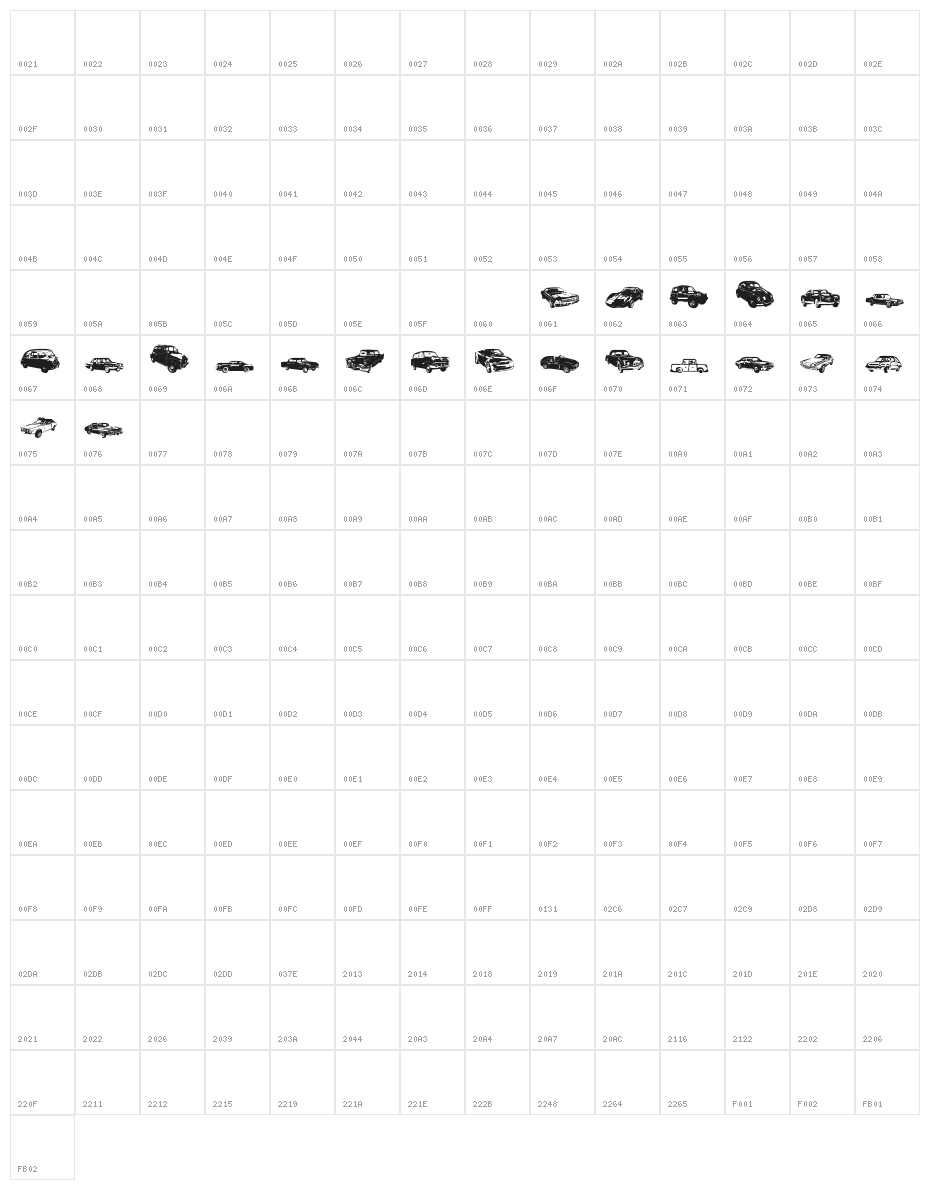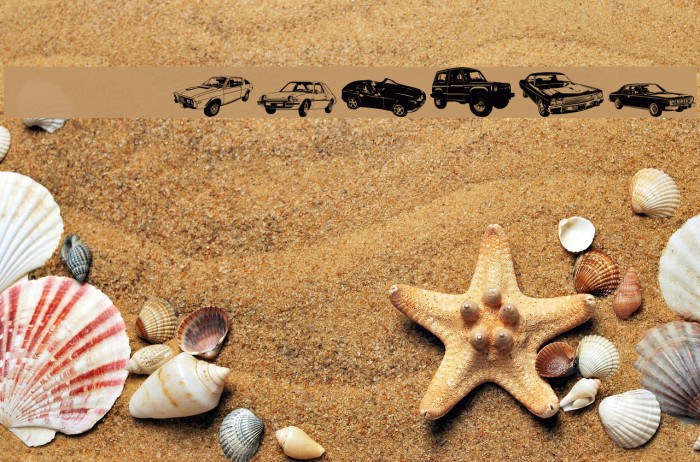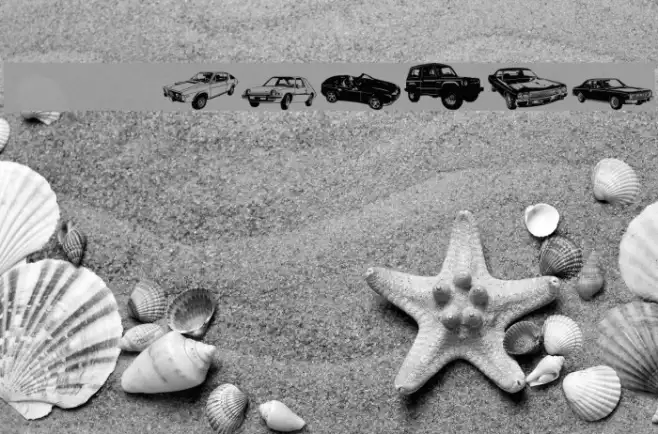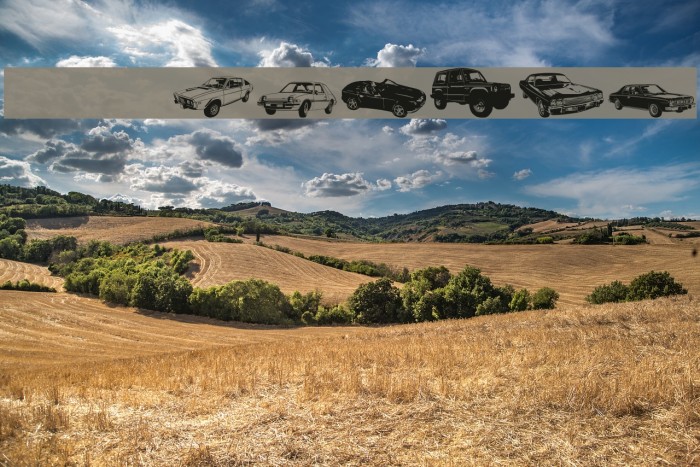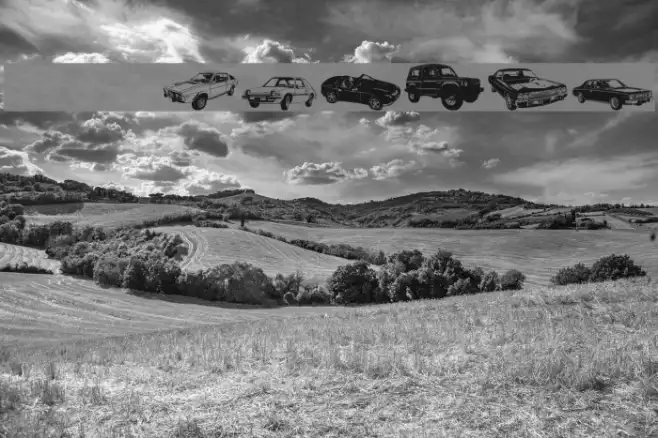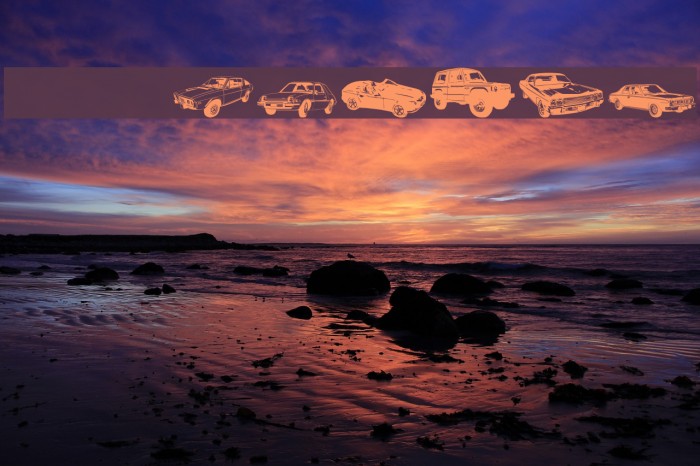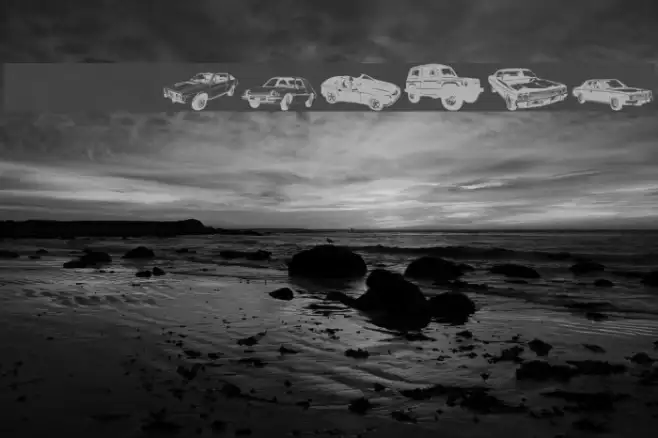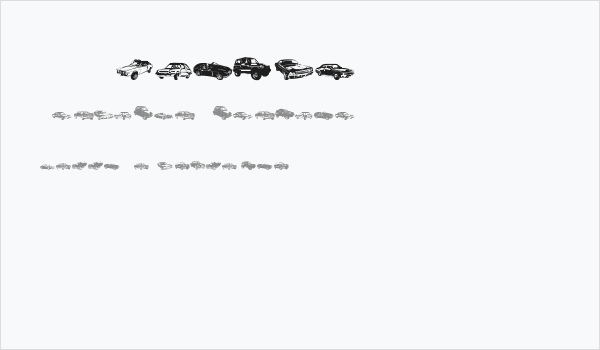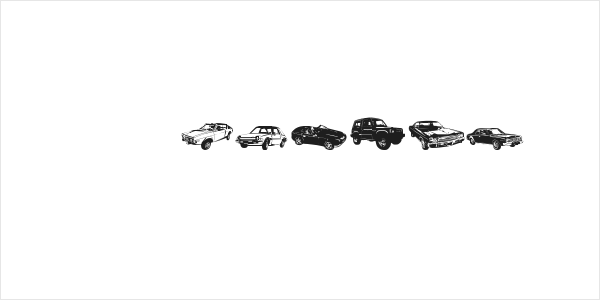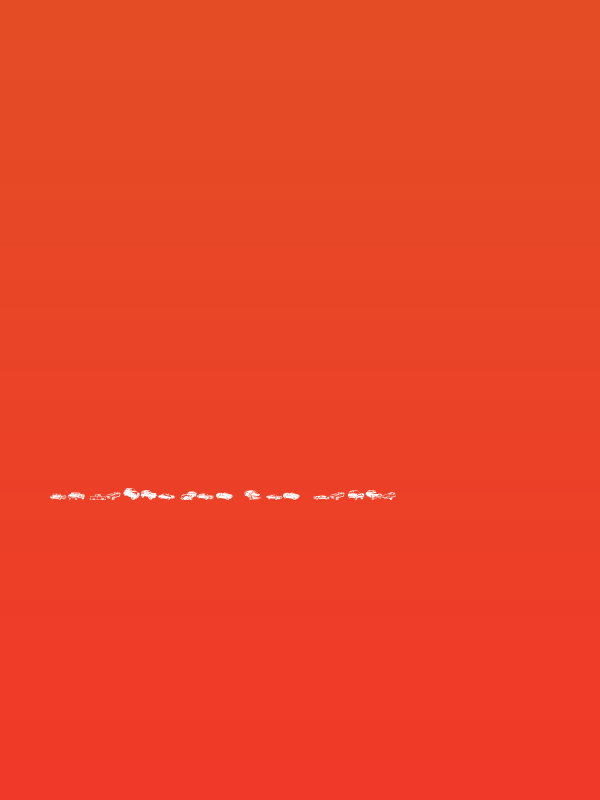
DJ Autocar Font
DJ Autocar Description
A decorative display font featuring detailed black-and-white illustrations of various classic and vintage cars in place of standard alphanumeric characters and symbols. Each glyph is a unique car silhouette, making the font highly illustrative and thematic.
| Overall Style | Decorative, Thematic, Illustrative |
| Use Case | Logos, Headlines, Posters, Themed graphics |
| Proposed Projects | Automotive event posters, car show flyers, themed invitations, children's books, educational materials about vehicles, novelty merchandise. |